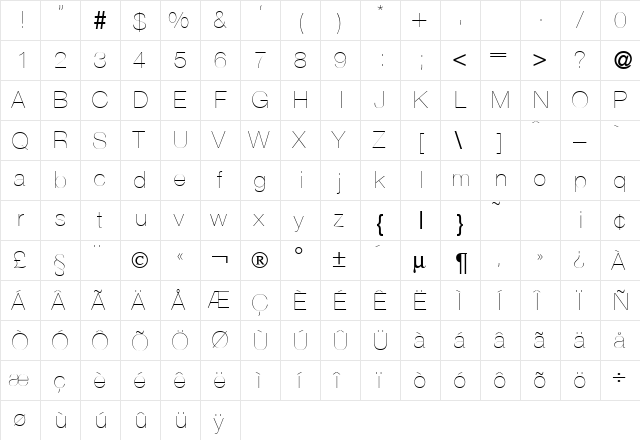
HelbaXLightDB Normal
Design Context for HelbaXLightDB Typeface
HelbaXLightDB is a composed and adaptable typeface that performs quietly and consistently across a wide range of design contexts. The delicate stroke weight brings airiness and refinement to layouts.